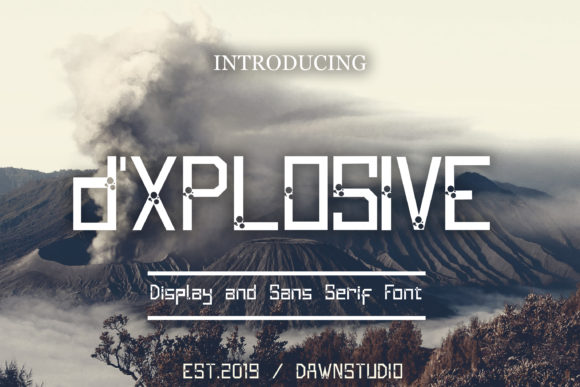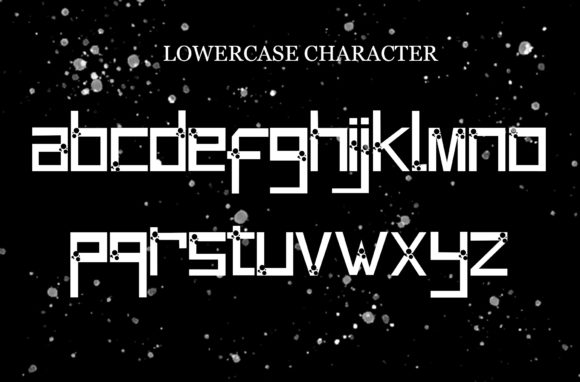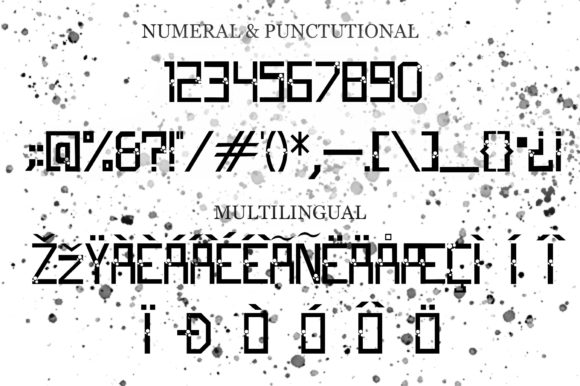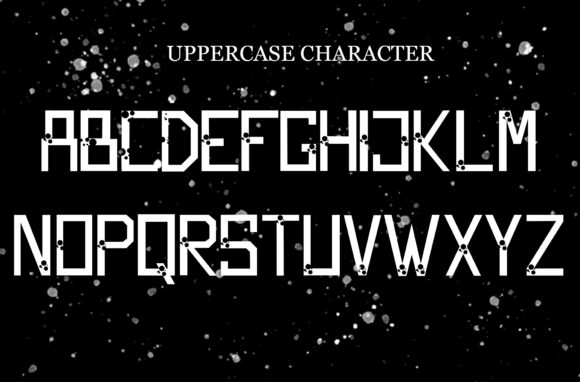
D’XPLOSIVE Font: The Ultimate Sans Serif for Creative Projects
The world of typography is vast and exciting, with numerous fonts available for various creative projects. Among these, the D’XPLOSIVE font stands out as a striking sans serif that can elevate your designs to the next level. In this article, we’ll explore the unique features of the D’XPLOSIVE font, its uses, and why it’s a must-have for designers and crafters.
What is D’XPLOSIVE Font?
The D’XPLOSIVE font is a modern sans serif typeface that boasts a distinctive look. Its unique design makes it perfect for a wide range of applications, from logos and posters to quotes and more. This font is designed to make a statement, and its explosive style is sure to grab attention.
Key Features of D’XPLOSIVE Font
- Unique Design: The D’XPLOSIVE font features a one-of-a-kind design that sets it apart from other sans serif fonts.
- Versatility: This font can be used for various creative projects, including logos, posters, quotes, and more.
- High-Impact: The D’XPLOSIVE font is designed to make a statement, making it perfect for designs that require a bold and attention-grabbing look.
Uses of D’XPLOSIVE Font
The D’XPLOSIVE font is incredibly versatile, making it suitable for a wide range of applications. Here are some of the ways you can use this font:
- Logos: The D’XPLOSIVE font is perfect for creating unique and memorable logos that make a statement.
- Posters: This font is ideal for designing eye-catching posters that grab attention.
- Quotes: The D’XPLOSIVE font can be used to create inspiring and motivational quotes that stand out.
- Headings and Titles: This font is great for creating bold and attention-grabbing headings and titles for articles, blog posts, and more.
Benefits of Using D’XPLOSIVE Font
Using the D’XPLOSIVE font can bring numerous benefits to your designs. Here are some of the advantages of using this font:
- Stand Out: The D’XPLOSIVE font is designed to make a statement, ensuring your designs stand out from the crowd.
- Professional Look: This font has a professional and modern look, making it perfect for designs that require a sleek and sophisticated style.
- Easy to Read: Despite its bold and attention-grabbing style, the D’XPLOSIVE font is easy to read, making it suitable for body text and more.
Tips for Using D’XPLOSIVE Font
To get the most out of the D’XPLOSIVE font, here are some tips to keep in mind:
- Use it Sparingly: While the D’XPLOSIVE font is attention-grabbing, it’s best to use it sparingly to avoid overwhelming your designs.
- Pair it with Other Fonts: Experiment with pairing the D’XPLOSIVE font with other fonts to create a unique and visually appealing look.
- Experiment with Colors: The D’XPLOSIVE font looks great in various colors, so don’t be afraid to experiment and find the perfect hue for your design.
The D’XPLOSIVE font is a striking sans serif that can elevate your designs to the next level. Its unique look, versatility, and high-impact style make it perfect for a wide range of creative projects. Whether you’re a designer or crafter, this font is a must-have in your toolkit. So why not give it a try and see how it can transform your designs?